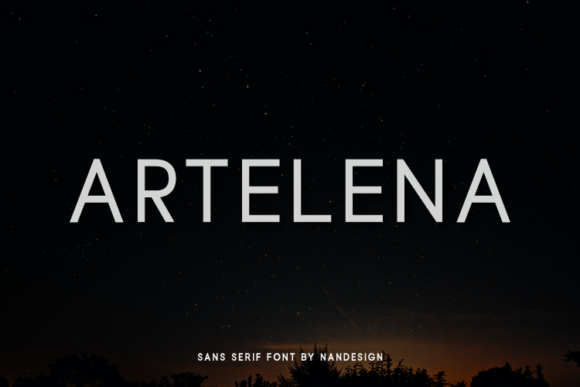
Unleash the elegance of Artelena, a sans serif font that exudes sophistication at every stroke. Created by the renowned Nan Design, this typographic masterpiece is crafted to elevate the visual appeal of your magazine designs, leaving an unforgettable impression on your readers. Artelena's minimalist and neat character adds a touch of contemporary flair, effortlessly enhancing the readability and impact of your words. Immerse yourself in a world of boundless creativity as you explore the endless possibilities of Artelena.
With its versatility, Artelena seamlessly adapts to a myriad of projects, transforming your ideas into captivating visual experiences. Allow your designs to shine, whether you're crafting captivating headlines, alluring body text, or eye-catching logos. The clean lines and subtle curves of Artelena create a harmonious balance, inviting your audience to delve into the depths of your content. Discover the power of Artelena and watch your magazine designs soar to new heights of visual excellence. Embrace the art of typography and ignite your creativity with this extraordinary font.